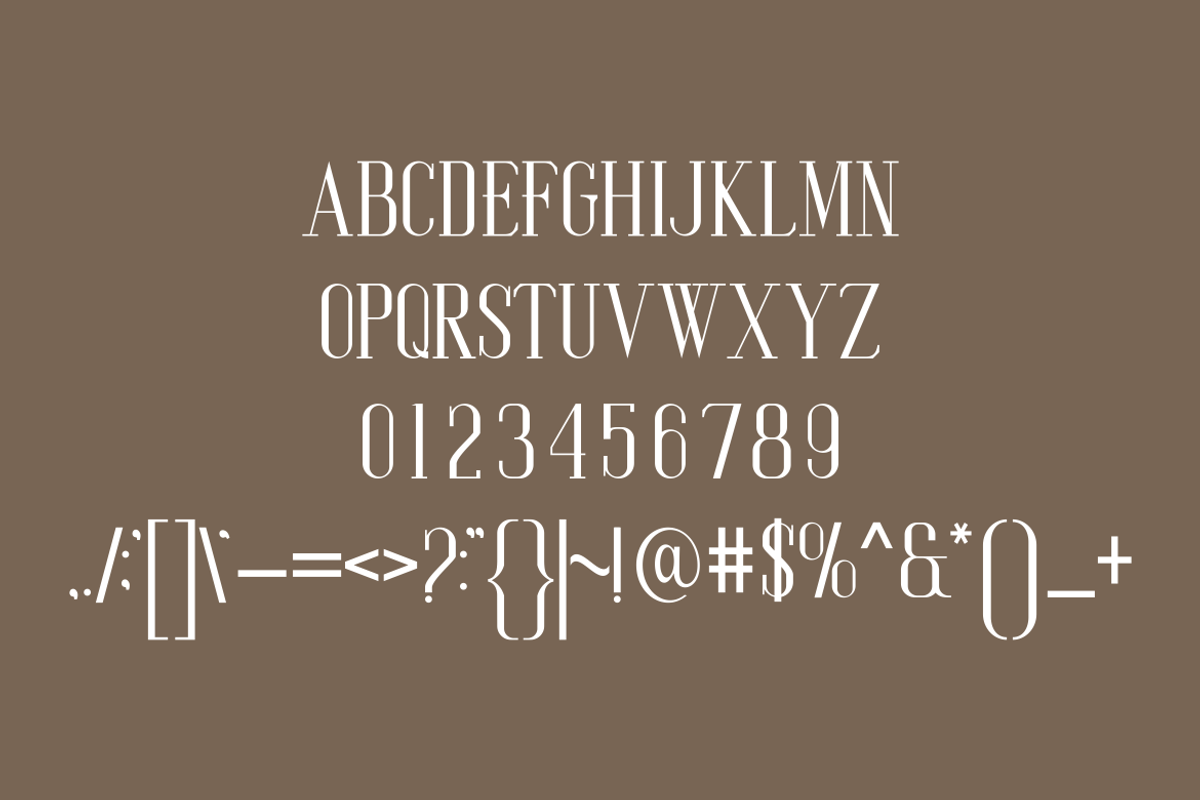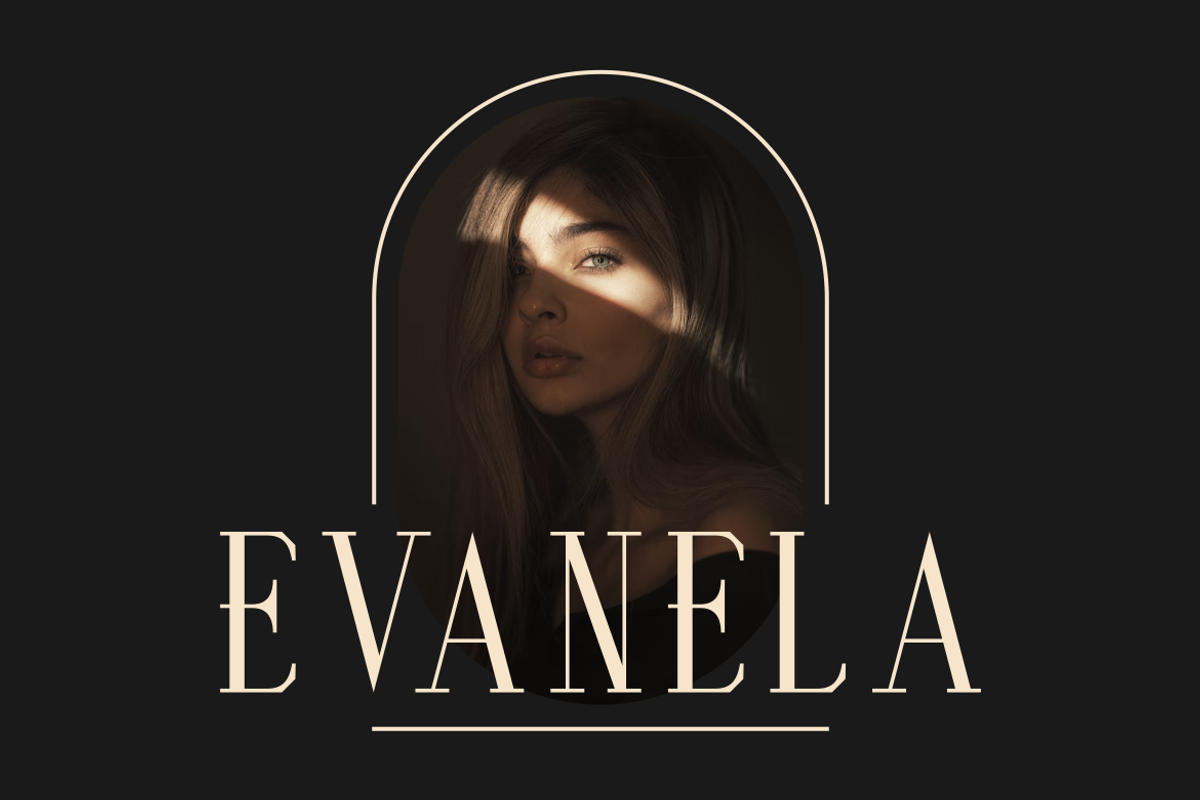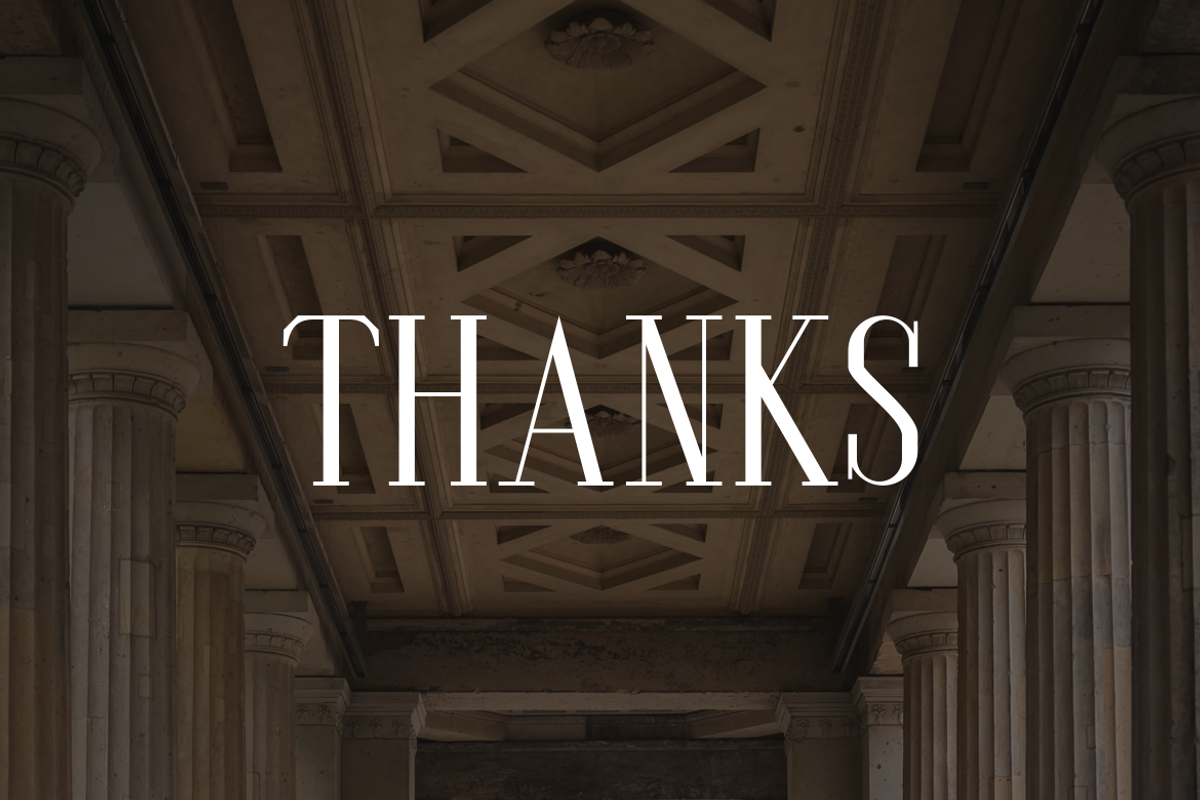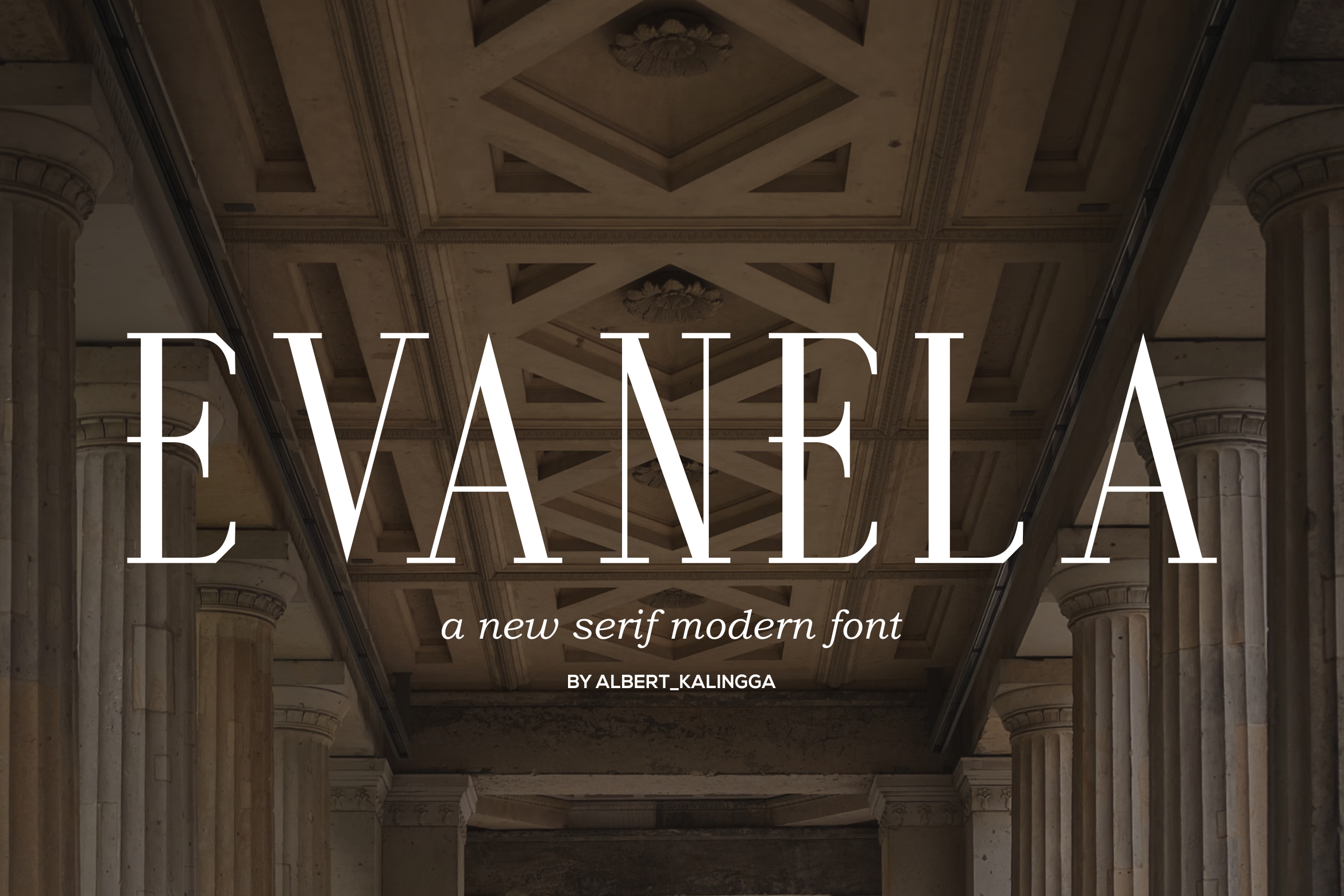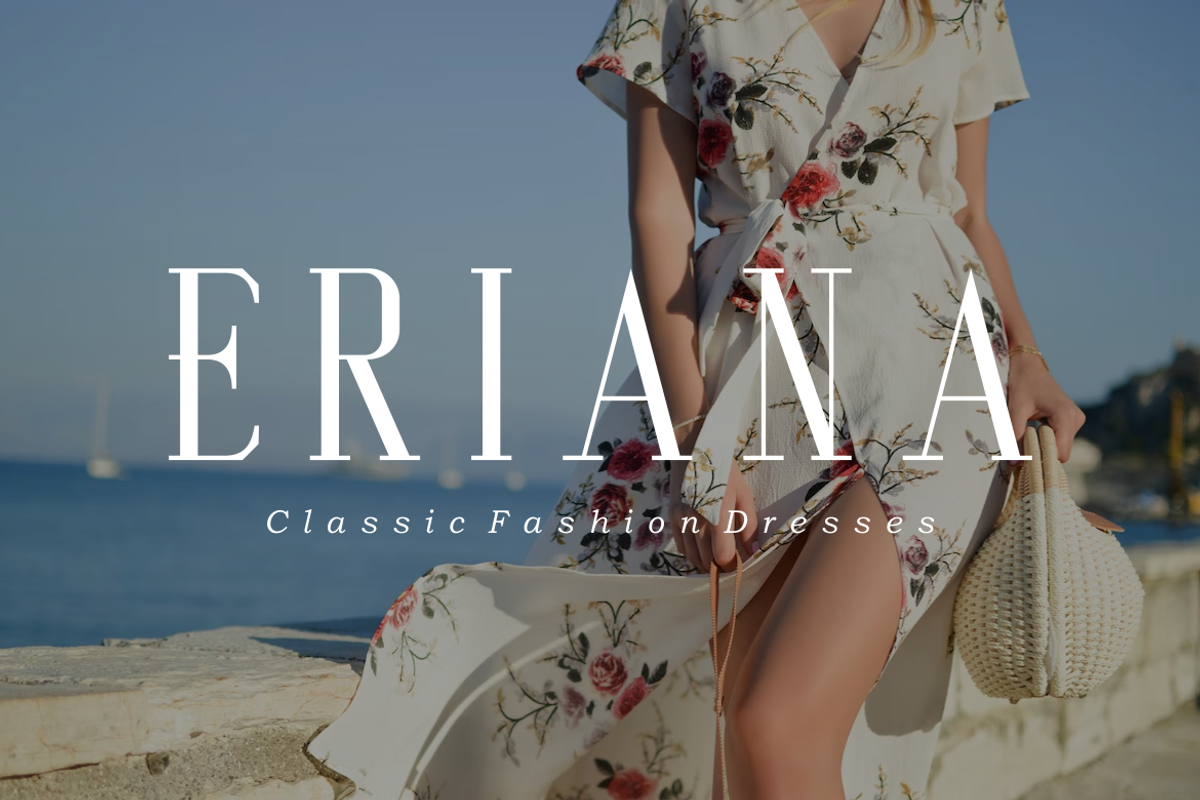
Evanela Font
Introducing our new product Evanela Font - Modern Font
Evanela Font - Modern Font is a bold and authentic display font. The font is suitable for any branding project like logo, esport, and many more. outstanding in a wide range of contexts.